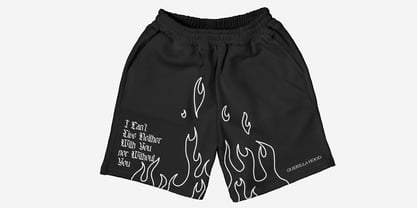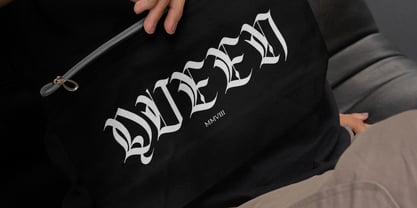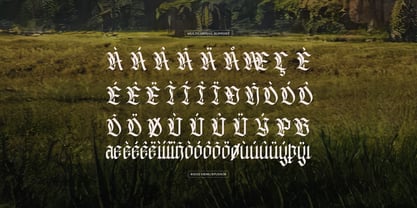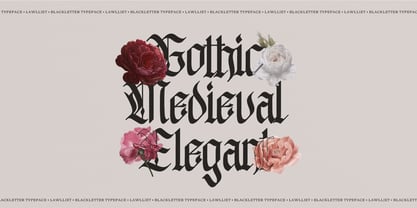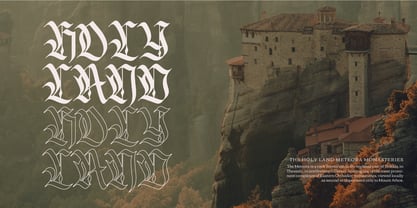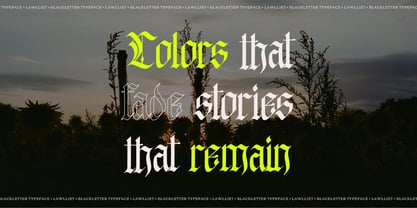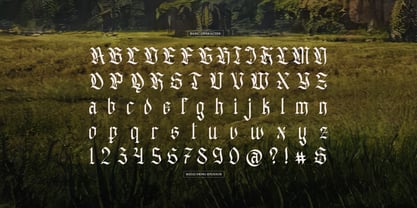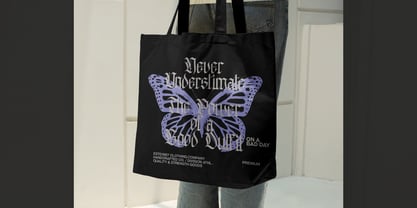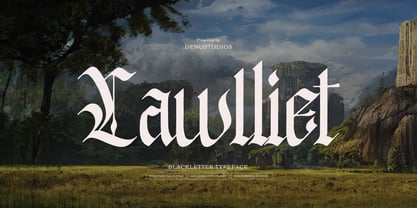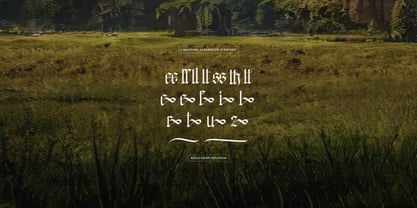
Lawlliet
by Denustudio
The Lawlliet Font Family was designed by Dede Nugraha and published by Denustudio. Lawlliet contains 1 styles. More about this family
Lawlliet | Blackletter Typeface, from Denustudios, suitable for any projects such as: logos, branding projects, homeware designs, product packaging, mugs, quotes, posters, shopping bags, t-shirts, book covers, name card, invitation cards, greeting cards, label, photography, watermark, special events, and all your other lovely projects that need a Blackletter Typeface taste.